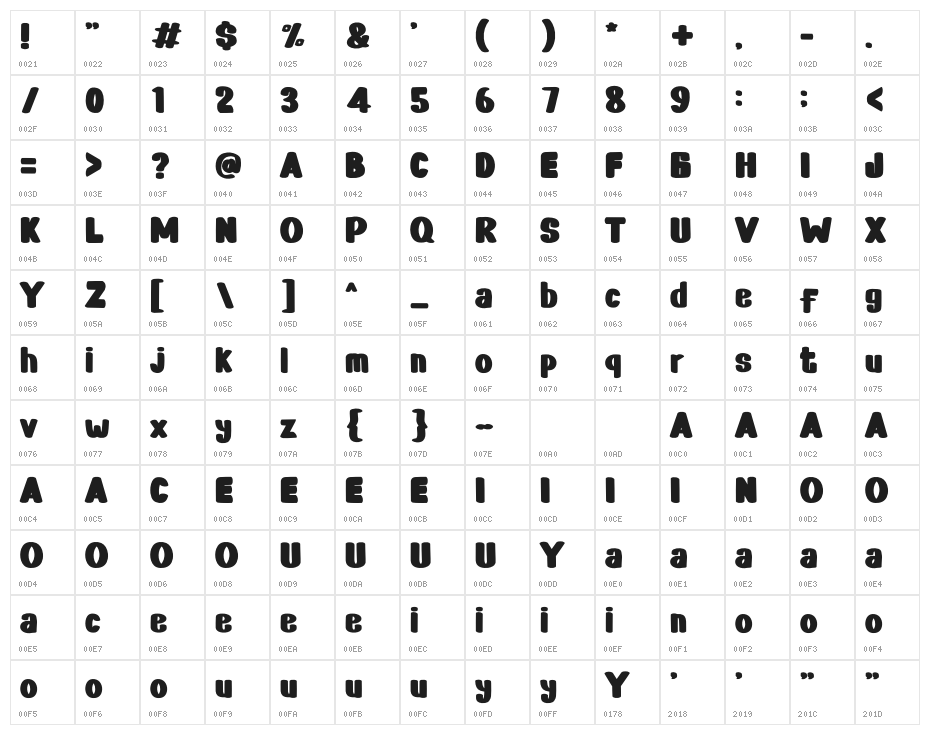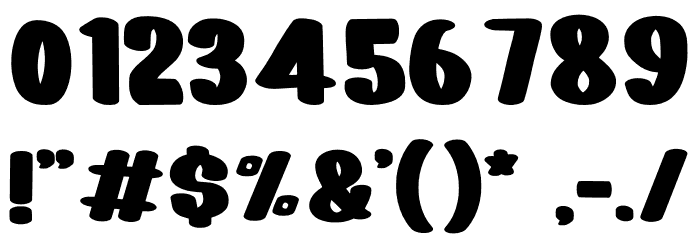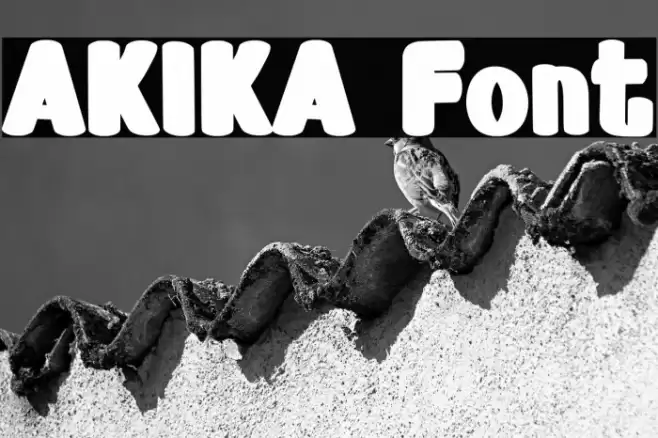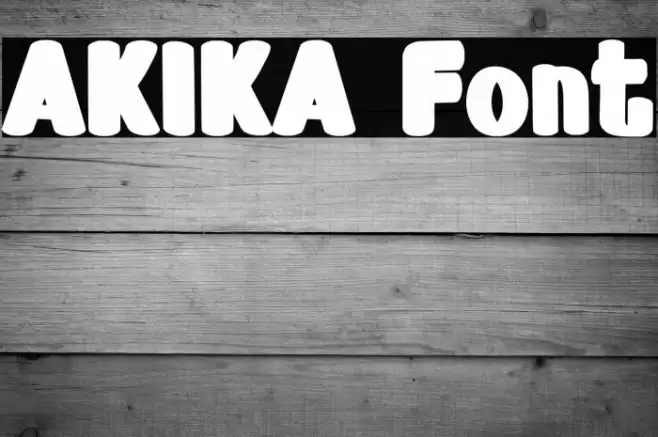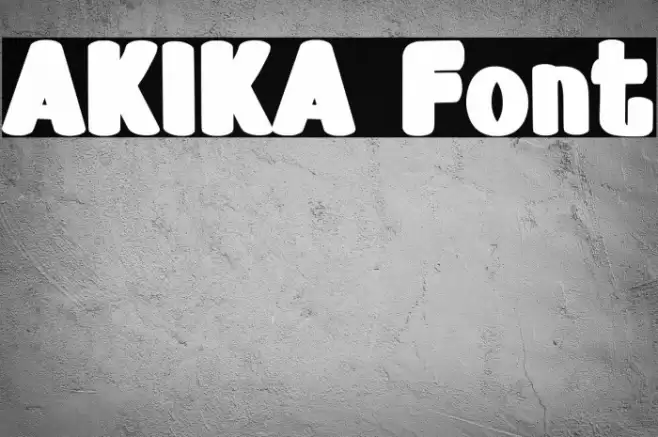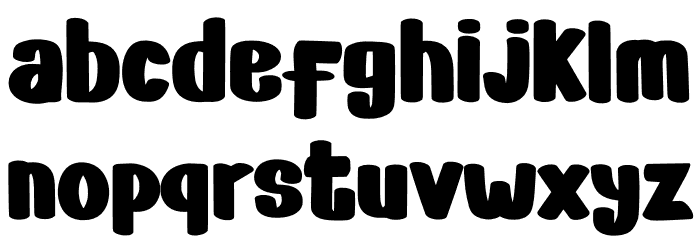
AKIKA Font
| Stile generale | Playful, Bold |
| Progetti proposti | Ideal for children's books, playful branding, posters, and any project requiring a friendly and bold typeface. |